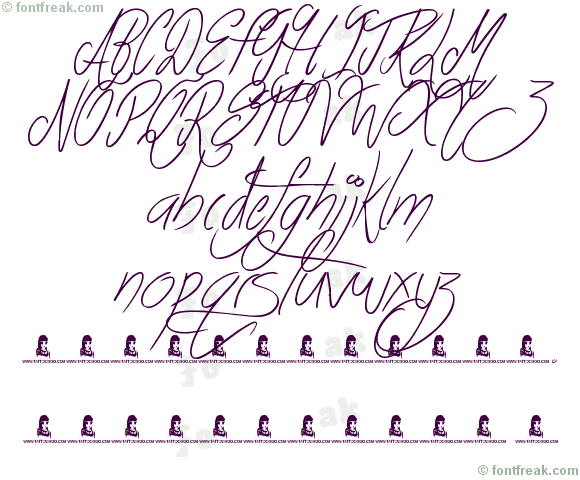
Life Azures
About Life Azures
The Life Azures font by Jonathan S. Harris is an elegant script typeface that exudes a sense of fluidity and grace. Its design features flowing strokes and a distinctively personal touch, making it an ideal choice for various creative applications. The font showcases a balanced stroke weight that varies gently, adding depth and character to each letterform. The spacing is thoughtfully crafted, ensuring readability while maintaining an artistic flair. Decorative elements, such as the gentle loops and swirls, enhance its overall aesthetic, making it visually appealing and versatile.
Life Azures is perfect for a range of use cases. Its charming style makes it an excellent choice for wedding invitations, where the need for elegance and romance is paramount. Additionally, it serves beautifully on event flyers and promotional materials, capturing attention with its unique character. Graphic designers looking to create memorable branding will find this font invaluable for logos and product packaging. Restaurant menus can also benefit from its inviting appearance, enhancing the overall dining experience. Moreover, content creators can use Life Azures in social media graphics, giving their posts a distinctive and polished look.
What sets Life Azures apart is its ability to blend artistic expression with functional design. The unique characteristics of this font not only capture attention but also evoke emotion, making it a standout choice for those looking to make a lasting impression. Don’t miss the opportunity to enhance your creative projects with the Life Azures font free download.